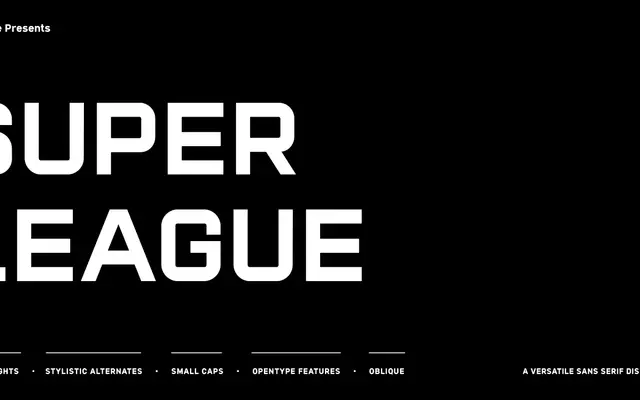
Super League
A sports-oriented display family spanning eight weights with matching obliques, small caps and ordinal ligatures built specifically for fixture graphics and kit typography.
Designed with the sports industry in mind, the family avoids locking itself to a single sport aesthetic, making it workable across football, basketball, rugby and beyond. Eight weights from Extra Light to Black each carry an oblique, giving 16 fonts in total, and OpenType features include small caps, stylistic alternates, and discretionary ligatures for VS, st, nd, rd and th ordinals. Suited to printed kits, digital scoreboards, badge design and broadcast graphics.
Designed explicitly for the sports industry with a broad, versatile structure suited to kit numbering, badges and headlines; the oblique variants and wide weight range are characteristic of sports display typography.